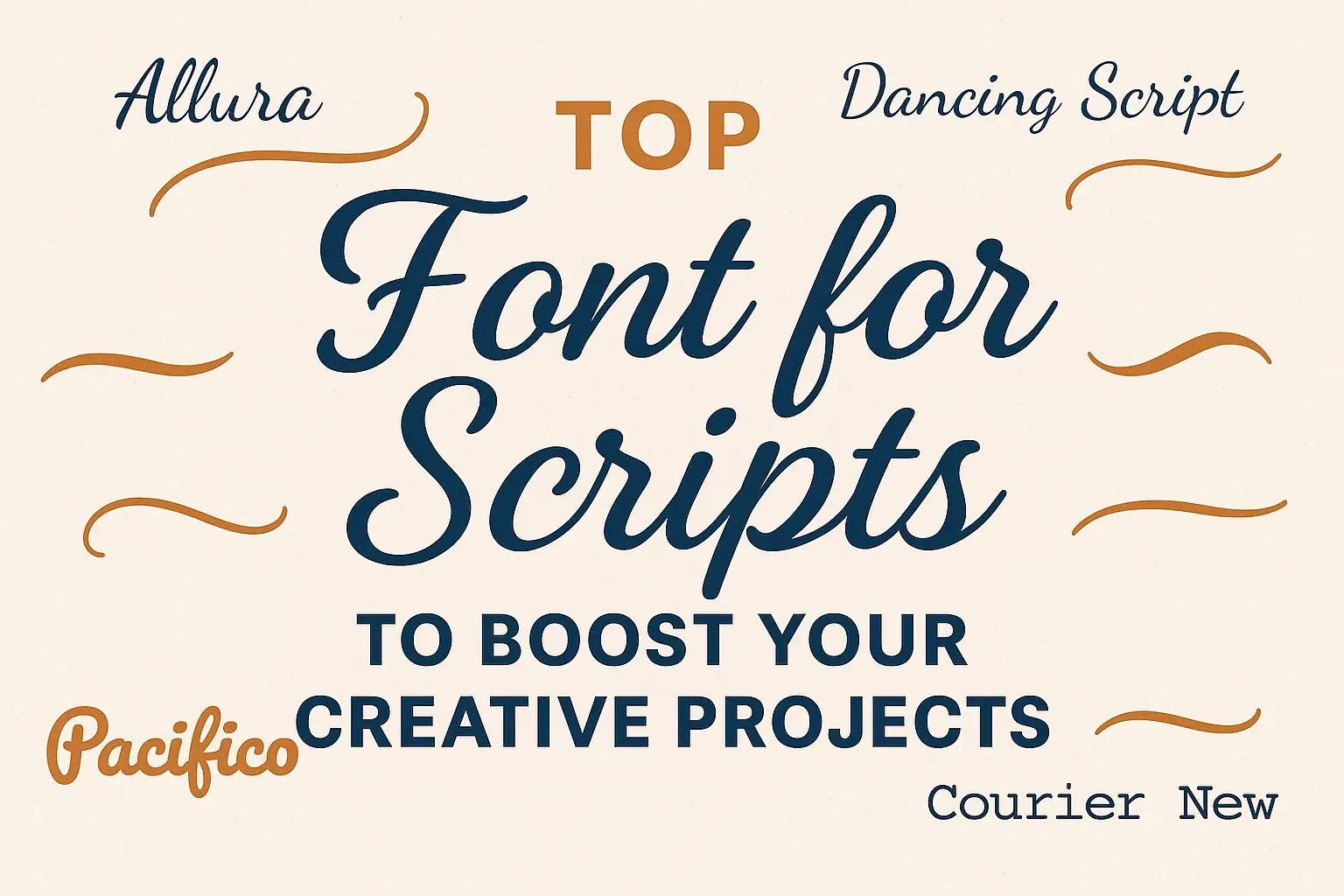
Top Font for Scripts to Boost Your Creative Projects
Best Font for Scripts That Elevate Every Design
Have you ever looked at a design and thought, “Wow, that font just feels right”? That is the magic of a great font for scripts. It adds character, elegance, and emotion to words. From handwritten charm to cinematic sophistication, script fonts can completely transform the tone of your project.
In this article, you will learn what makes a script font powerful, which ones are the most popular, and how to choose the right one for your creative or professional needs.
What Is a Script Font?
A script font mimics handwriting or calligraphy, often with connected, flowing strokes. It is widely used in branding, invitations, headlines, and even screenwriting. Unlike sans-serif or serif fonts, script fonts add personality and emotion to text.
Types of Script Fonts
• Formal scripts: Elegant and decorative, perfect for invitations or certificates.
• Casual scripts: Fun and playful, great for blogs, social media, and creative designs.
• Brush scripts: Bold and artistic, resembling paintbrush strokes.
• Monospaced scripts: Uniform letter spacing, ideal for film or stage scripts.
If you are looking for stylish and high-quality font for scripts to enhance your creative projects, here are ten outstanding recommendations from Koplexs. Each font offers a unique personality, perfect for different design moods and professional needs.
1. American Cloudie Font
American Cloudie Font delivers a smooth and elegant handwritten style that feels both modern and artistic. It works beautifully for branding, invitations, and fashion logos. Explore American Cloudie Font and give your words a luxurious handwritten touch today.
2. Mickey Carley Font
Mickey Carley Font blends playful curves with a friendly vibe, ideal for blogs, social media posts, and creative branding. It is both stylish and approachable. Add Mickey Carley Font to your collection and make your design instantly more inviting.
3. Welcome Dream Font
Welcome Dream Font offers a dreamy, soft script look that exudes warmth and romance. It is perfect for wedding stationery, quotes, and elegant headlines. Discover Welcome Dream Font and bring a touch of elegance to your visual storytelling.
4. Angelica Signature Font
Angelica Signature Font is crafted for a classy, handwritten signature appearance. Its stylish curves make it ideal for logos, photography watermarks, and high-end brands. Try Angelica Signature Font and transform your branding into something unforgettable.
5. Vilmada Font
Vilmada Font combines elegance with readability, creating a perfect balance for business cards, invitations, and minimalist designs. Download Vilmada Font now and elevate your projects with modern charm.
6. Yellow Molly Font
Yellow Molly Font brings energy and creativity to every word. Its lively brush strokes make it great for posters, art projects, and social media graphics. Use Yellow Molly Font to inject life and color into your next creative masterpiece.
7. The Brown Font
The Brown Font has a strong, vintage-inspired look that fits perfectly for retro designs, product packaging, or typography-based artwork. Explore The Brown Font and add timeless character to your creative work.
8. Lovaria Font
Lovaria Font offers romantic elegance and a smooth script flow. It is perfect for wedding branding, greeting cards, or heartfelt quotes. Choose Lovaria Font to express love, creativity, and beauty through your designs.
9. Nathalyn Font
Nathalyn Font stands out with its graceful lines and modern calligraphic style. It fits perfectly for blogs, luxury brands, or lifestyle visuals. Get Nathalyn Font and bring sophistication to your next branding project.
10. Gosseliena Font
Gosseliena Font is a refined handwritten script with artistic details, perfect for elegant invitations and creative layouts. Try Gosseliena Font today and let your typography shine with effortless elegance.
Each of these fonts captures the essence of creative expression through beautiful script lettering. Whether you are designing a brand logo, crafting invitations, or creating visual content, these font for scripts from Koplexs will make your projects stand out with elegance and personality.
Let’s explore the top script fonts that designers, writers, and creators love using. Each one brings a unique vibe to your work.
✨ Creative and Design Projects
Font NameStyle DescriptionIdeal Use
AlluraElegant and refinedWedding invitations, branding
Great VibesFlowing, calligraphic feelLogos, greeting cards
Dancing ScriptLively and beautifulBlogs, posters
PacificoCasual, brush-style scriptSocial media, creative projects
Are script fonts good for logos?
Yes. Script fonts add personality and uniqueness to logos, especially in fashion, wedding, or lifestyle brands.
Can I use multiple script fonts in one design?
It is best to use only one script letter font per design. Mixing too many creates visual chaos.